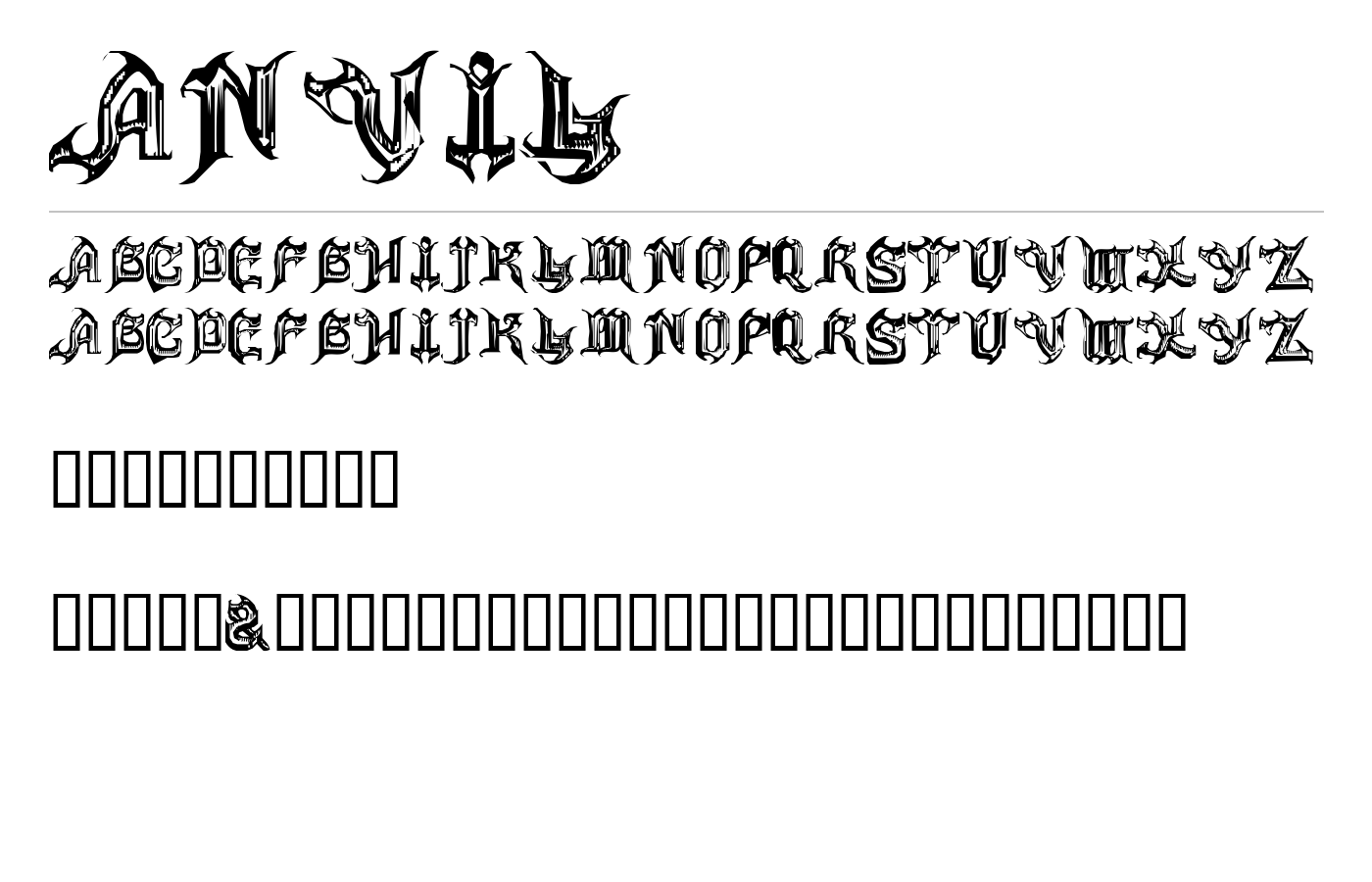
ANVIL is a decorative blackletter font characterized by intricate, sharp, and angular strokes with a heavy, bold weight that evokes a strong medieval or gothic vibe. Its ornate design and detailed letterforms make it ideal for creating dramatic, vintage, or fantasy-inspired branding, posters, and headlines where a striking, old-world aesthetic is desired. This font works best in display settings rather than body text, adding a unique, bold character to any design.
ANVIL Font